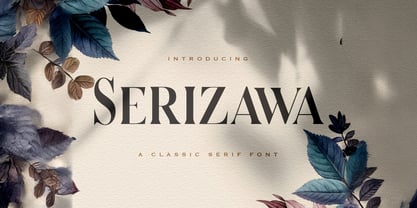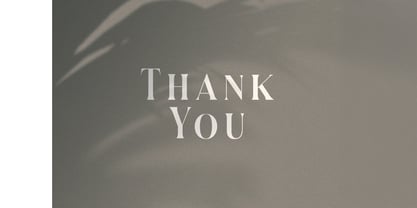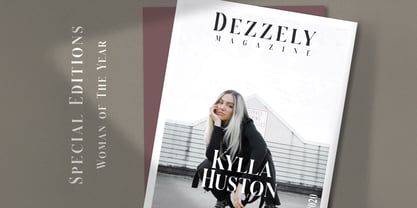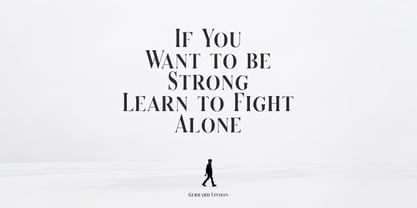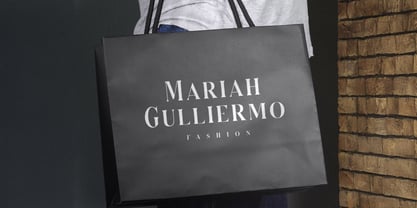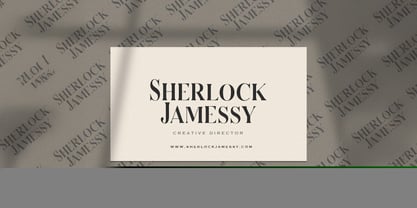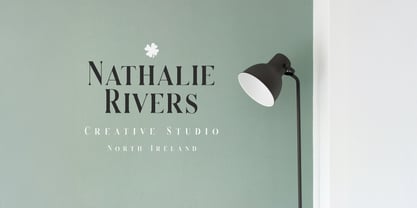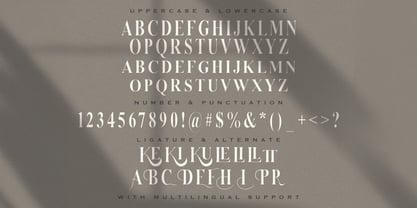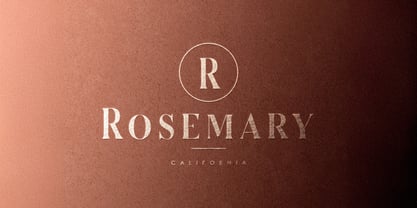
The Serizawa Font Family was designed by Virgiawan Listanto and published by Stringlabs Creative Studio. Serizawa contains 1 styles. More about this family
Serizawa is a timeless classic serif font that exudes sophistication and refinement. With its elegant proportions, subtle curves, and sharp serifs, Serizawa blends traditional craftsmanship with modern versatility. Designed to make a statement, this font is ideal for both high-end editorial work and vintage-inspired designs, offering a perfect balance of readability and artistic flair.
Designers: Virgiawan Listanto
Foundry: Stringlabs Creative Studio
Serizawa